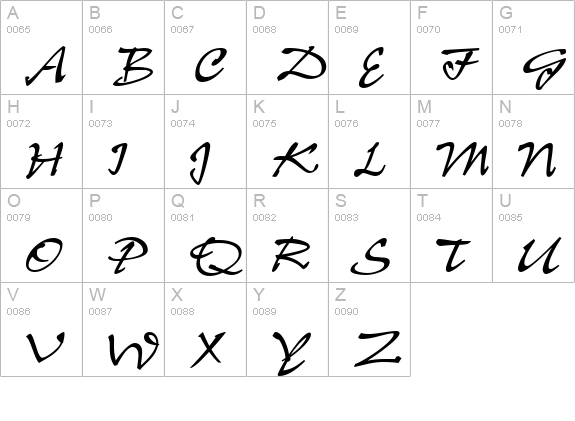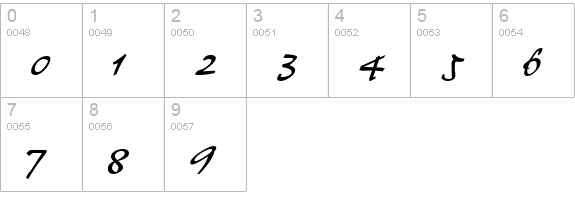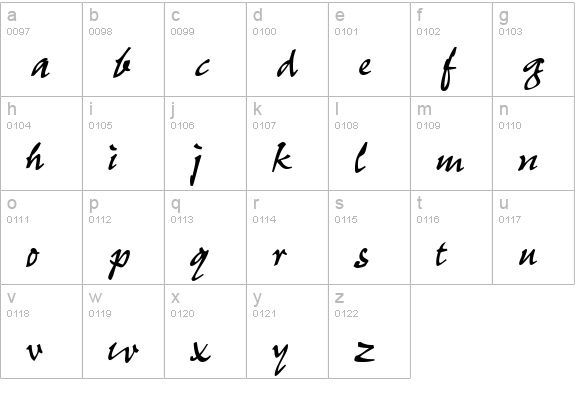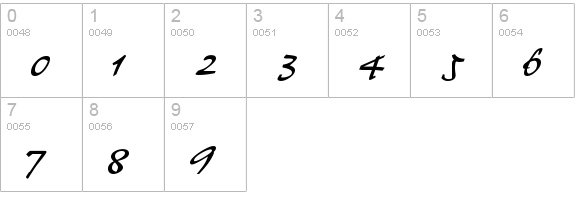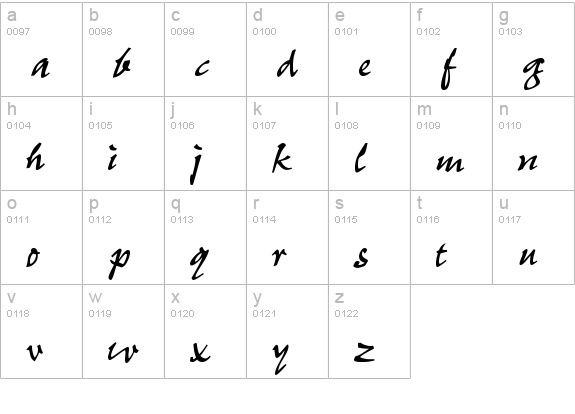
P700-Script-Regular Font Details
P700-Script-Regular is the standard, neutral variant in the P700 typeface family \xE2\x80\x94 well suited to general body text, paragraphs, and standard typographic work.
P700-Script-Regular is a beautifully designed font that adds a touch of elegance and sophistication to any project. This script font features delicate curves and flowing lines that make it perfect for invitations, wedding stationery, and other special occasions. Its versatility allows it to be used for both formal and informal designs, making it a must-have in any designer's toolkit. What makes P700-Script-Regular even more appealing is that it is available for free download at FontsMarket.com. This means that you can easily access this stunning font without having to worry about any additional costs. Whether you are a professional designer looking to enhance your projects or someone who simply appreciates high-quality typography, P700-Script-Regular is sure to impress with its beauty and charm. Download it today and elevate your designs to the next level!